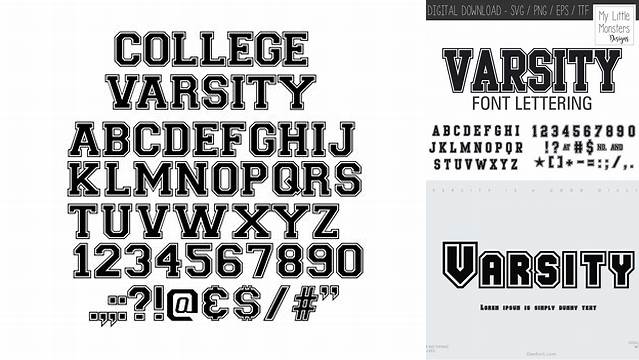
Free Varsity Fonts: Download & Use Guide
Are you looking for varsity fonts? You've come to the right place, guys! In this comprehensive guide, we will explore everything you need to know about free varsity fonts. We'll dive into what varsity fonts are, their history, where you can find them, and how to use them in your projects. Whether you're designing a sports team logo, creating a vintage-inspired poster, or just adding a touch of classic Americana to your work, varsity fonts can be a fantastic choice. Let's get started!
What are Varsity Fonts?
Varsity fonts, also known as collegiate fonts or athletic fonts, are a typeface style traditionally used in sports jerseys, team logos, and school-related materials. These fonts often evoke a sense of nostalgia, tradition, and school spirit. Typically, varsity fonts feature bold, blocky letters with sharp angles and a slightly condensed appearance. They're designed to be easily readable from a distance, making them perfect for signage, banners, and of course, sports apparel.
The history of varsity fonts dates back to the late 19th and early 20th centuries when sports teams began to standardize their branding. The need for clear, impactful lettering on uniforms and merchandise led to the development of these distinctive typefaces. The blocky style was not only legible but also easy to stencil and print, which was crucial in the early days of athletic branding. Over time, varsity fonts became synonymous with American sports culture, embodying the spirit of competition and teamwork.
The appeal of varsity fonts lies in their classic and timeless aesthetic. They bring a sense of authenticity and history to any design, whether it's for a modern sports team, a retro-themed project, or a casual apparel line. The strong, bold characters make a statement, while the traditional look adds a touch of vintage charm. This versatility is why varsity fonts remain a popular choice among designers and brands today.
When choosing a varsity font, consider the specific needs of your project. Are you designing a logo that needs to stand out? Or are you creating a more subtle design that requires a softer touch? There are many variations of varsity fonts available, from ultra-bold to slightly more refined styles. Think about the overall message you want to convey and select a font that aligns with your vision. You should also consider the legibility of the font, especially if it will be used in smaller sizes or on busy backgrounds. A well-chosen varsity font can elevate your design, giving it a professional and impactful look.
Design Resource Websites: Many design resource websites, such as Behance and Dribbble, often feature free font offerings from designers looking to showcase their work. These platforms are not only great for finding inspiration but also for discovering unique and high-quality varsity fonts that you might not find elsewhere. Designers frequently share their creations as freebies, so keep an eye out for posts that include varsity fonts. Engaging with the design community on these platforms can also lead to valuable connections and opportunities.
Font Foundries with Free Sections: Some font foundries offer a selection of free fonts as a way to promote their work. These free fonts are often a great way to sample the quality and style of a foundry's offerings before potentially purchasing their premium fonts. Websites like Font Squirrel and MyFonts sometimes have sections dedicated to free fonts, where you might find varsity font options. Check these sites periodically, as their free offerings can change over time. Subscribing to their newsletters can also keep you informed about new free fonts and special promotions.
When downloading free fonts, it's essential to be mindful of the licensing terms. Always read the license agreement to understand how you can use the font. Some fonts may require attribution, while others may have restrictions on commercial use. By respecting the font designer's terms, you can ensure you're using the varsity fonts legally and ethically. This practice also supports the design community and encourages designers to continue sharing their work.